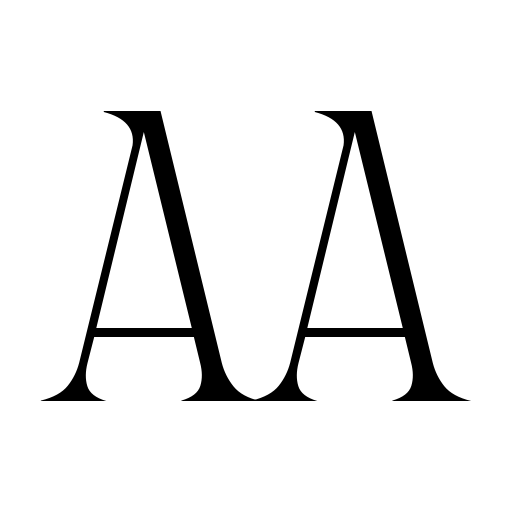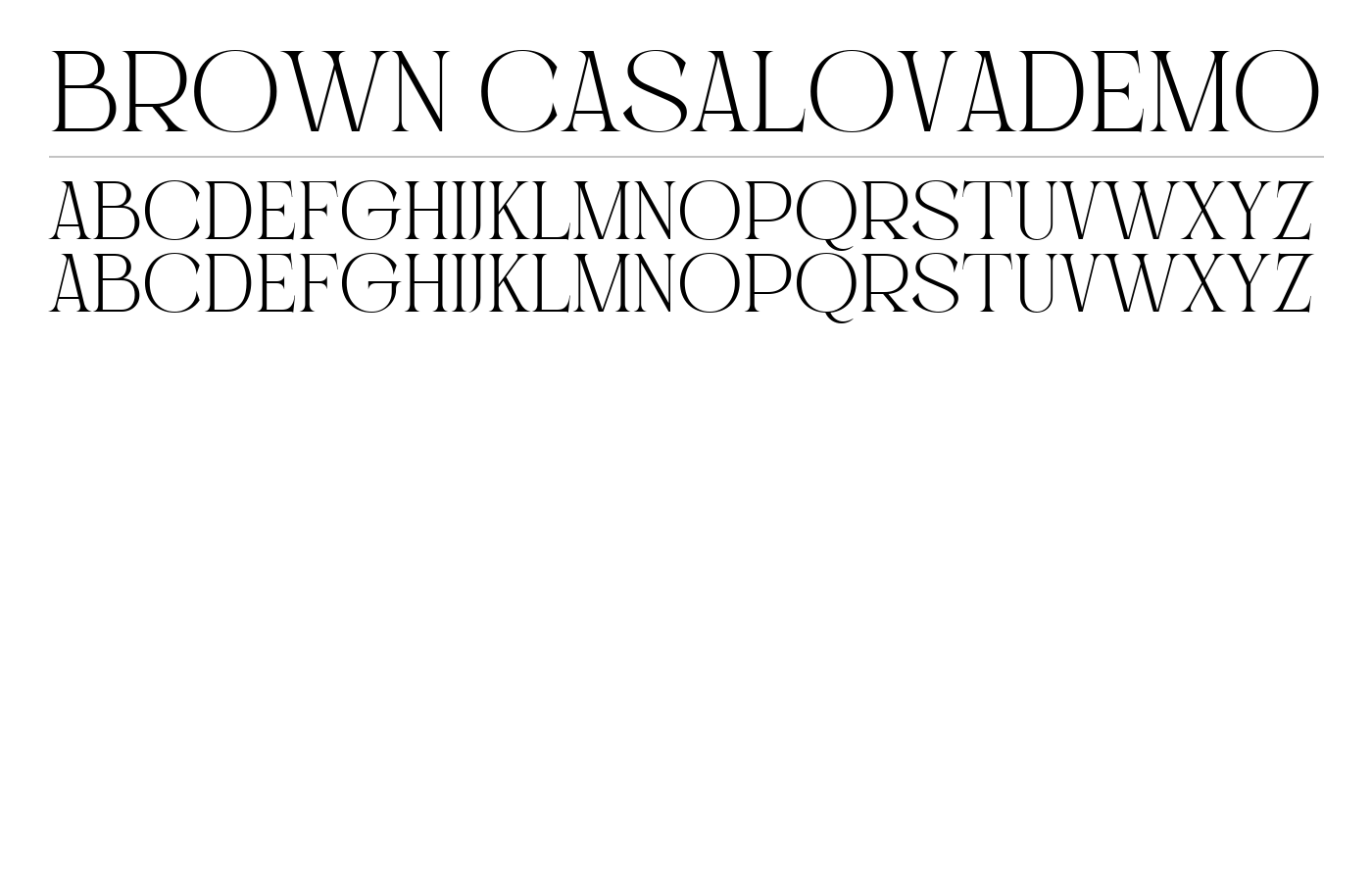
Brown CasalovaDemo is a refined serif font with a high-contrast, elegant design featuring thin, sharp strokes and delicate bracketed serifs. Its tall, slender letterforms and subtle flair create a sophisticated, classic look perfect for luxury branding, editorial headlines, and upscale packaging where a timeless and graceful style is desired. This font’s clean yet distinctive character makes it an excellent choice for making a stylish, memorable impression in both print and digital designs.
Brown CasalovaDemo Font
About Brown CasalovaDemo Font